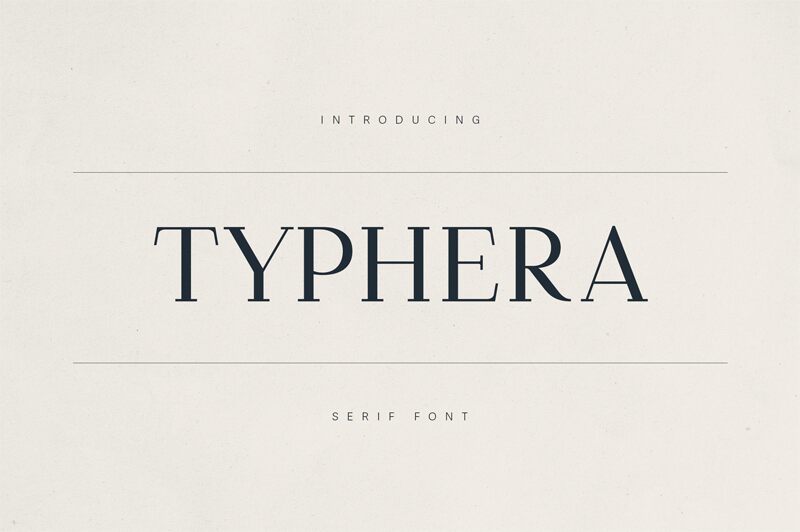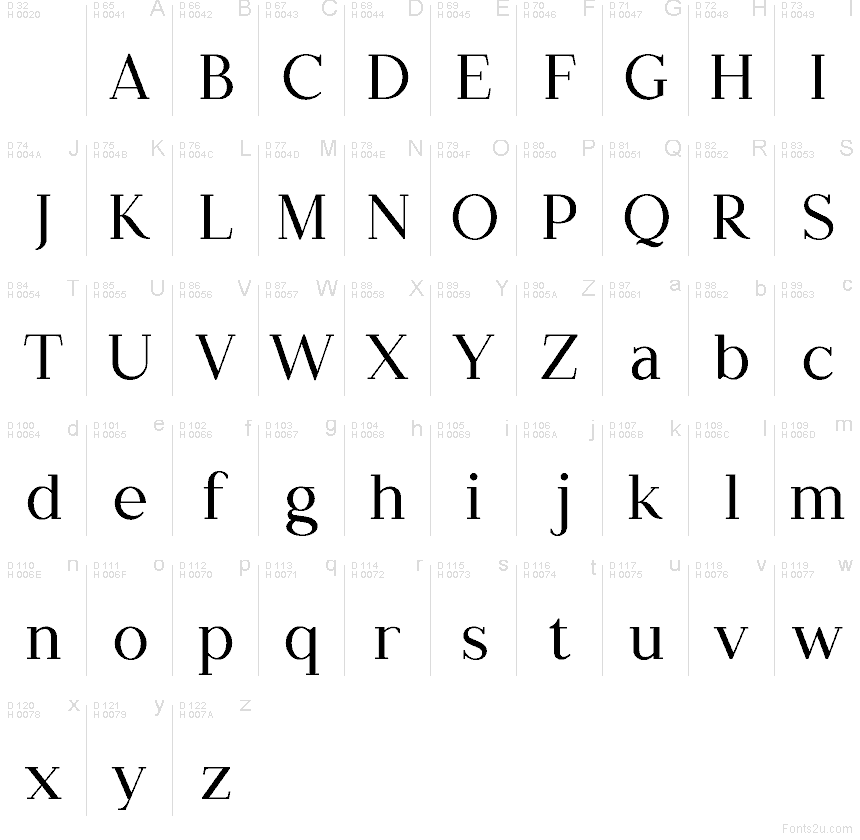
Typhera Regular
Typhera font by VPcreativeshop is a free serif typeface with a sleek, editorial bite. Slender strokes meet firm verticals and sharp, chiseled serifs, giving each word a polished, almost inky precision. The letterforms feel tall and airy, so even a single word set large has a quiet, confident presence that reads as refined rather than fussy.
Using Typhera, you can bring a fashion-magazine edge to brand identities, magazine covers, book titles, posters, luxury packaging, or stylish website hero text. This free font shines when you give it space and larger sizes, then pair it with a clean geometric sans for body copy to keep the look crisp and contemporary.